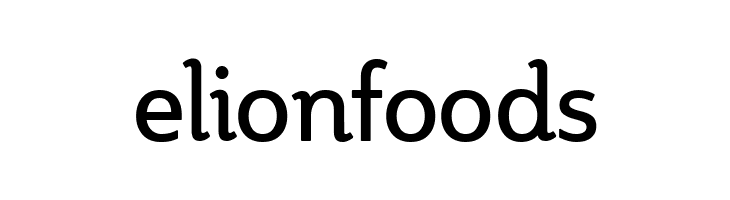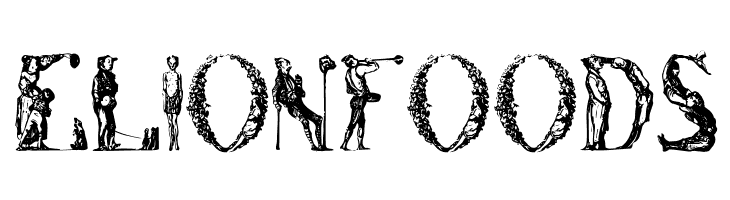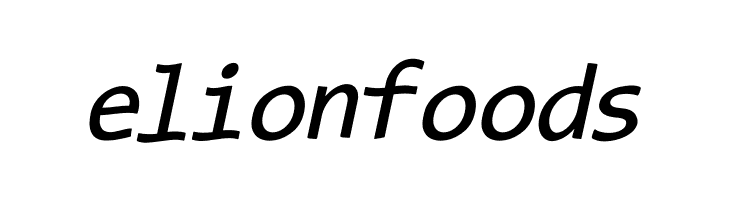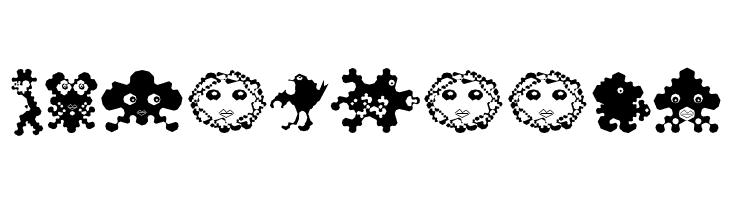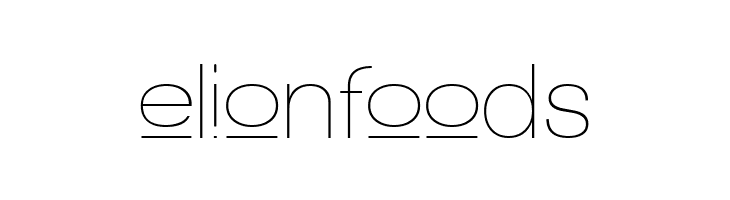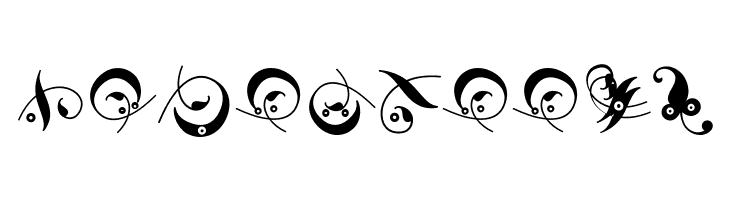
A modern, clean font with excellent readability and balanced design.
An artistic font where letters are formed by human figures in various poses.
A modern oblique typewriter-style font with clean lines and excellent readability.
An abstract, decorative font with intricate, polygonal designs for each character.
( Fonts by Graham Meade - GemFonts )
A clean, geometric font with thin strokes and a modern aesthetic.
A whimsical and artistic decorative font featuring abstract, face-like shapes.